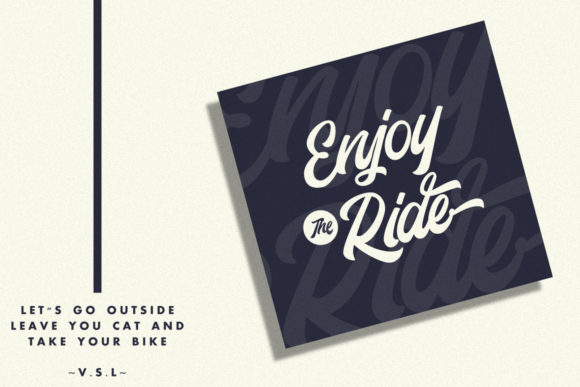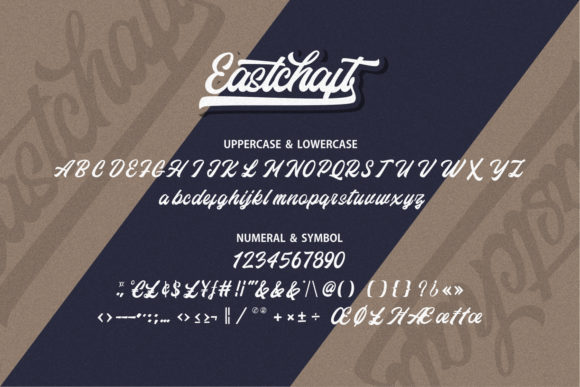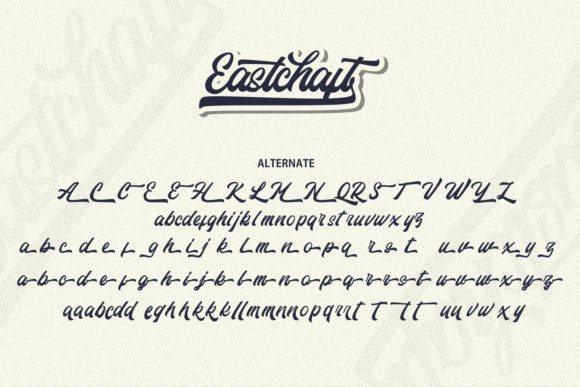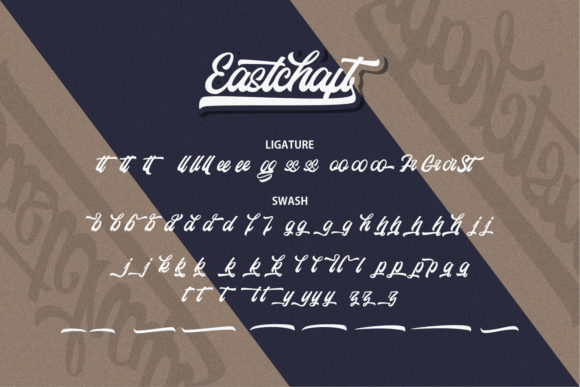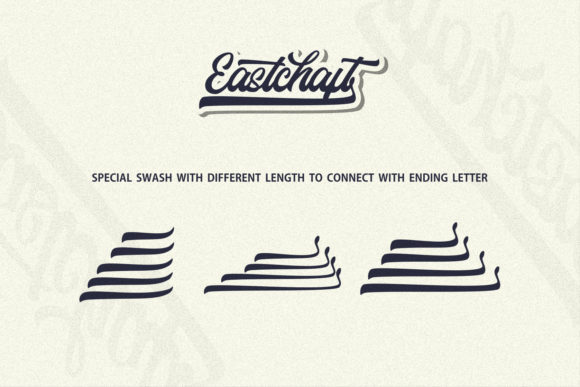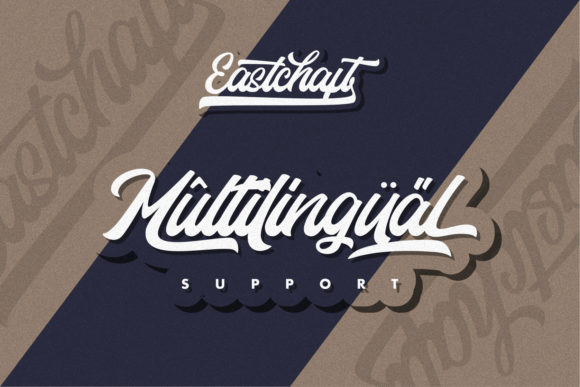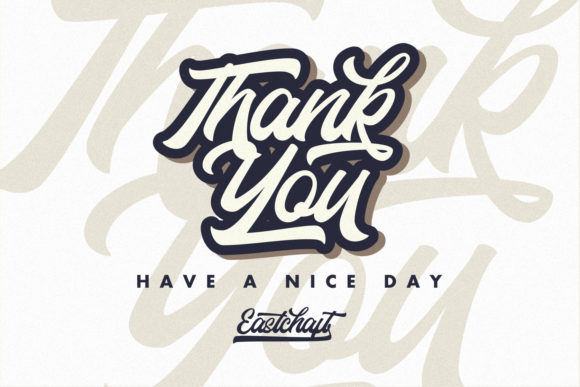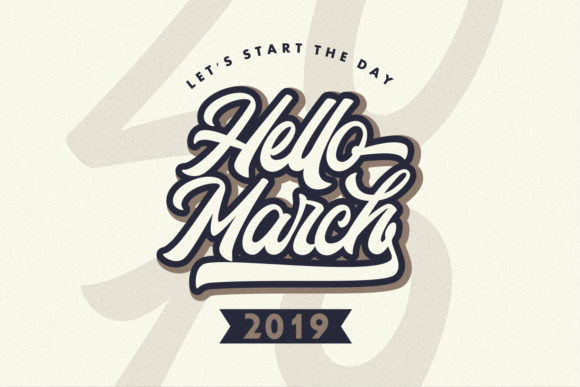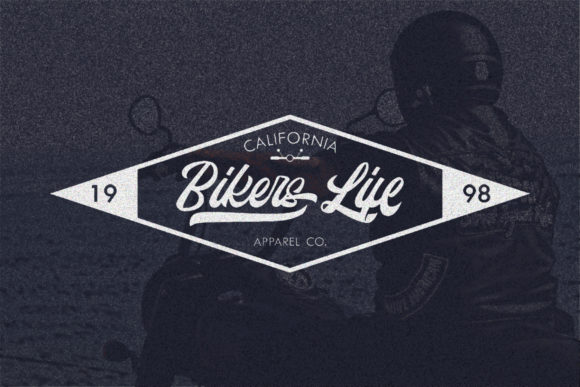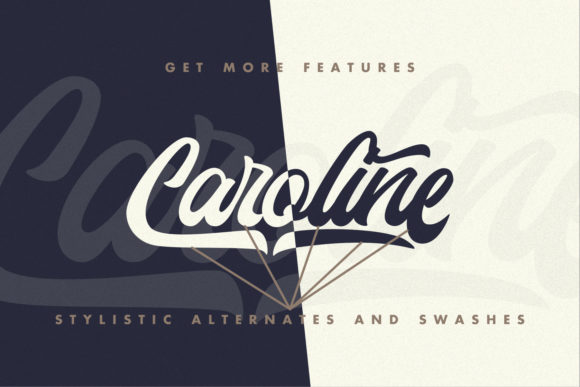
Eastchaft Font
About Eastchaft Font
Inspired by classic posters designs, Eastchaft is made by hand.Including uppercase, lowercase, numerals and punctuation, it will easily elevate any design project.